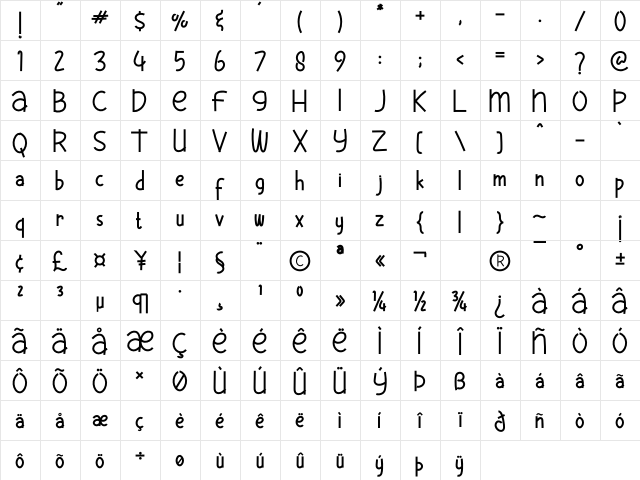
Blackboard School Regular
| Foundry | Airotype Design |
| Designer | Rofiq Soelta |
Design Context for Blackboard School Typeface
Blackboard School takes a measured approach to typography — its balanced proportions and neutral character make it a reliable workhorse for both digital and print work.